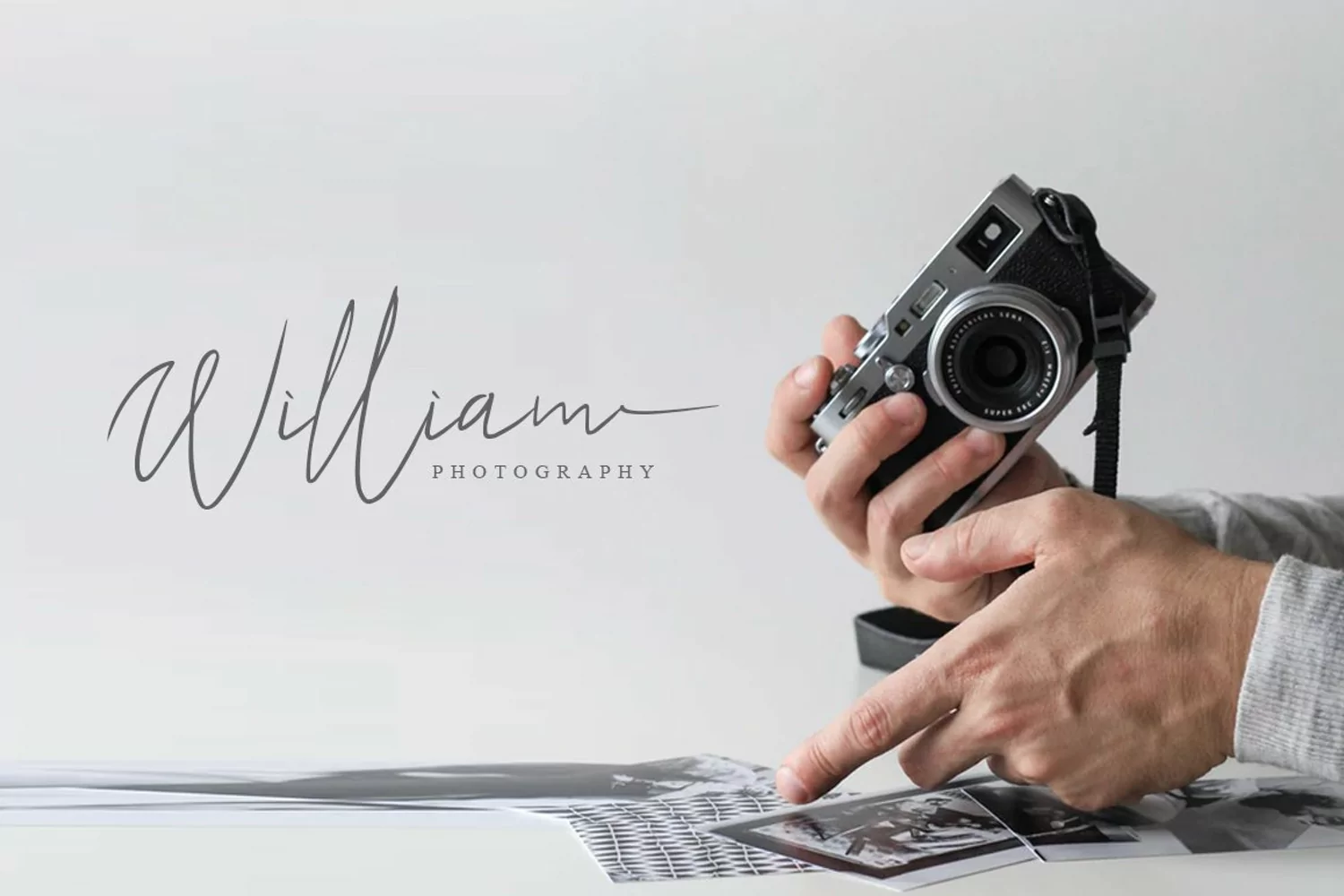
Introducing Ariel Signature font - a font that is very fresh and unique style handmade. Ariel Signature Typeface is perfectly suited to logo, stationery, poster, apparel, branding, wedding invitation, card, tagline, layout design, and much more !!
Features:- Uppercase
- Punctuation & Numeral
- Swashes